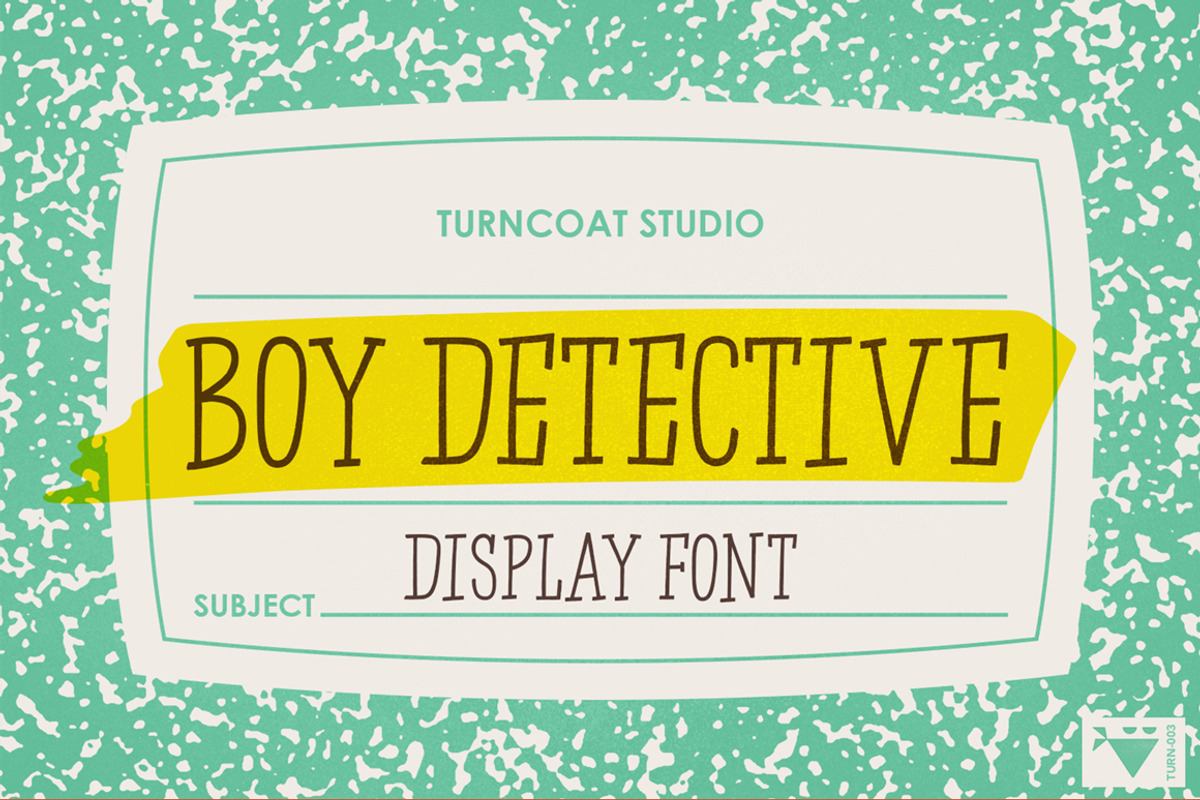
Boy Detective Font Free Download is a fun and quirky typeface inspired by classic detective novels and vintage mystery genres. With its bold and playful letterforms, this font is perfect for creating designs with a bit of mystery and whimsy. Ideal for posters, book covers, event promotions, logos, and branding, Boy Detective adds an adventurous and engaging touch to your project.
Its distinct character and stylish details make it ideal for designs that need to evoke curiosity, excitement, or a touch of nostalgia.